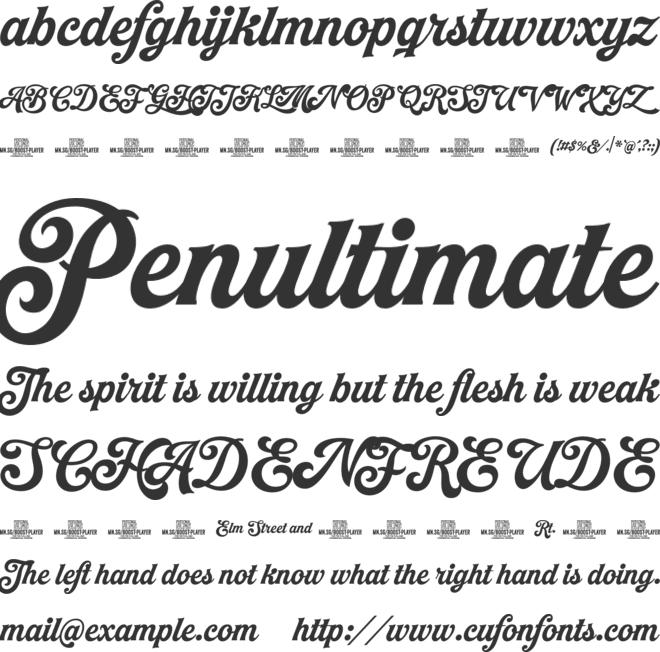
Boost Player PERSONAL USE ONLY Font
Mans Greback
NOTE: This font is for PERSONAL USE ONLY!To purchase a commercial license, visit:https://www.mansgreback.com/product/boost-playerBoost Player is a bold cursive with a classic vibe.A stylish, flowing font with a hint of retro, Boost Player has that traditional custom script look, perfect for a sports team logo, a cafe menu or sign-painter style posters. Classy yet modern and crisp, it looks fantastic in branding for a local shop, just like a for a unique book cover, or anything with an authentic look. Use underscore _ to make a swash.Example: Baseball_Use multiple underscores to make longer underlines. Example: Pennsylvania________For questions, please visit www.mn.sg/faq